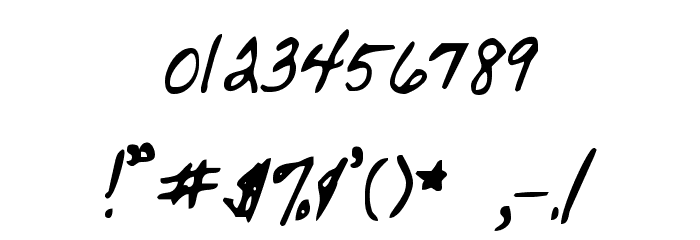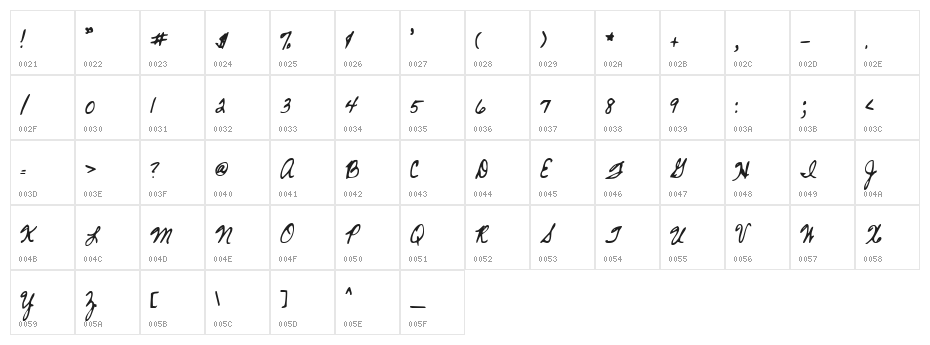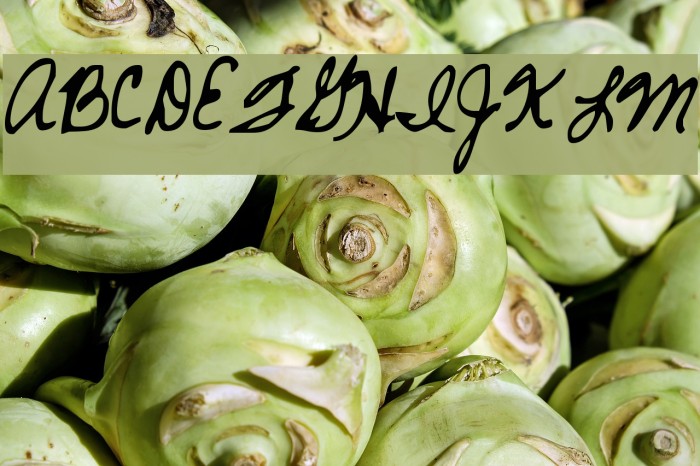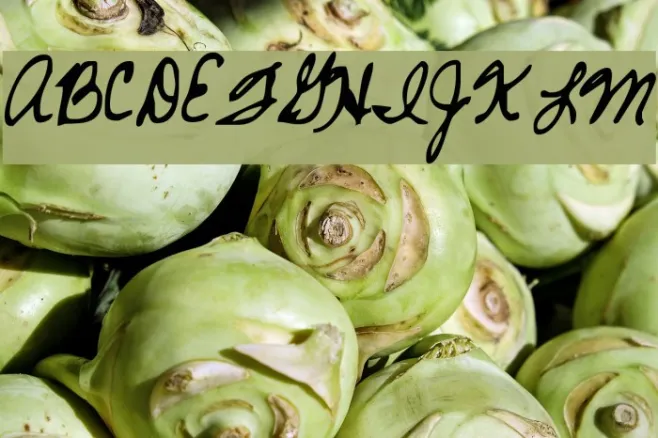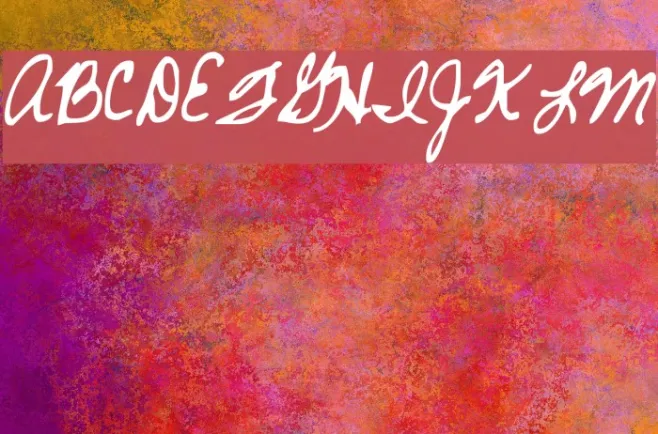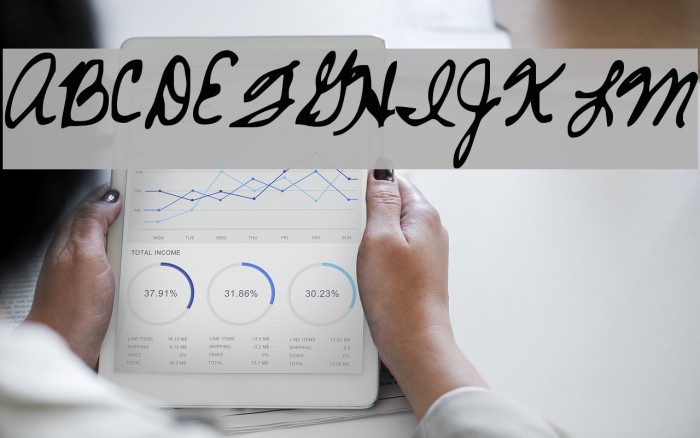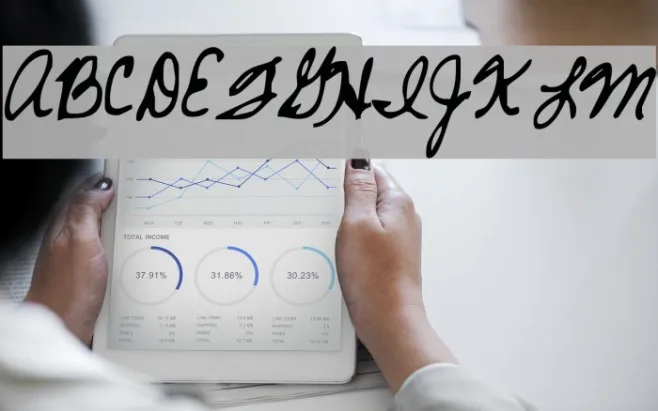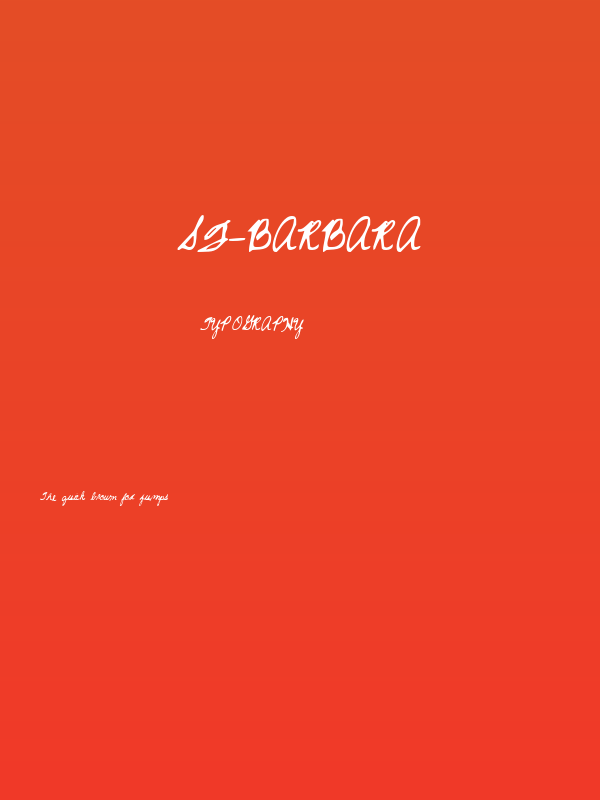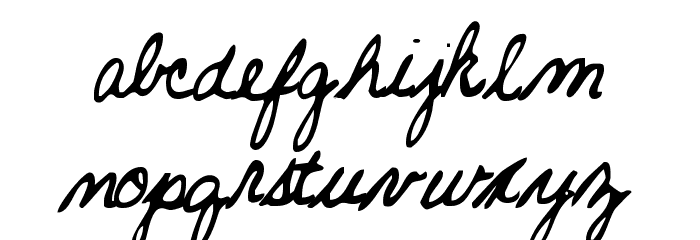
SF-Barbara Font
SF-Barbara Description
This font features a dynamic and fluid script style, characterized by its elegant and flowing cursive letters. The uppercase letters exhibit a bold and confident stroke, while the lowercase letters maintain a consistent and harmonious flow. The numerals are distinct and easy to read, complementing the overall script style. Special characters are thoughtfully designed to match the cursive aesthetic, adding a touch of sophistication. The font's design is reminiscent of handwritten calligraphy, making it suitable for projects that require a personal and artistic touch.